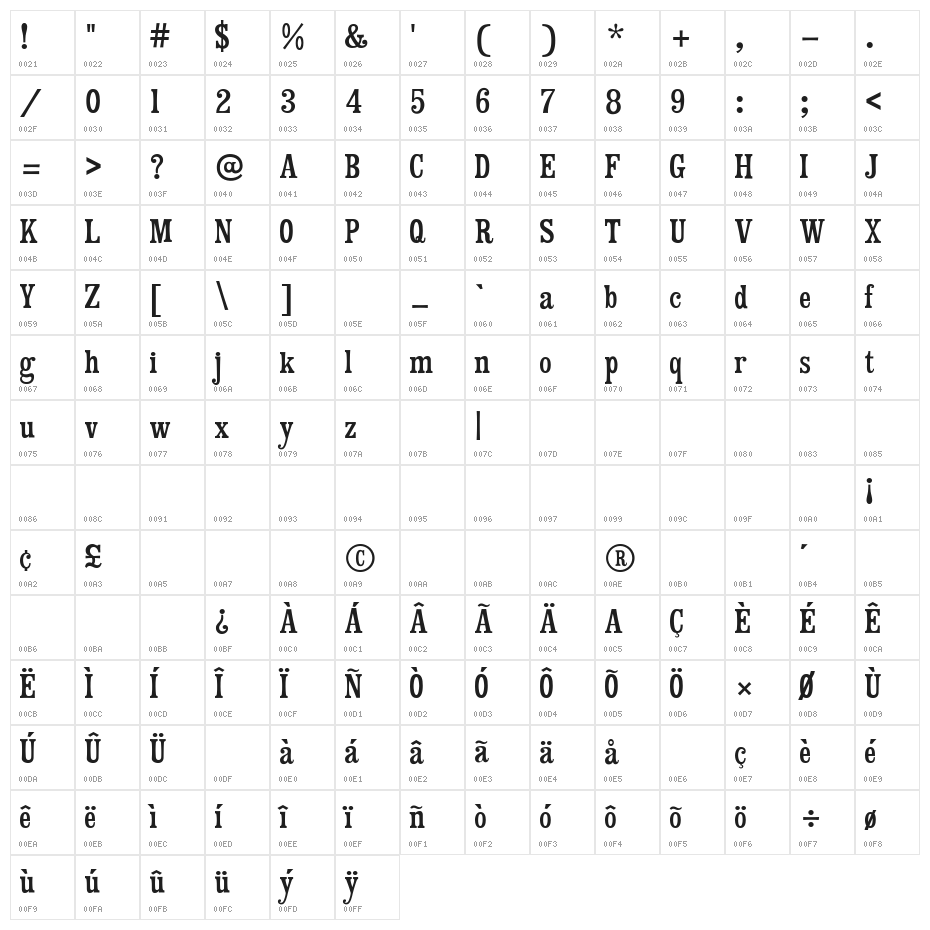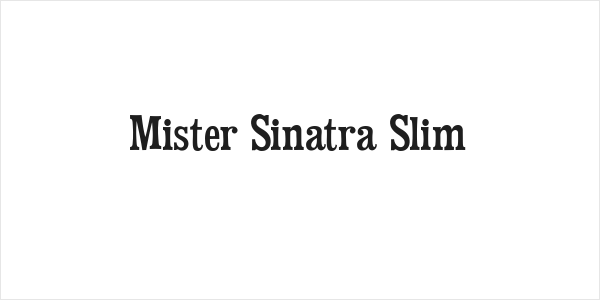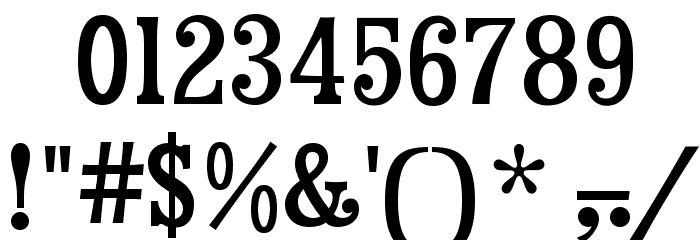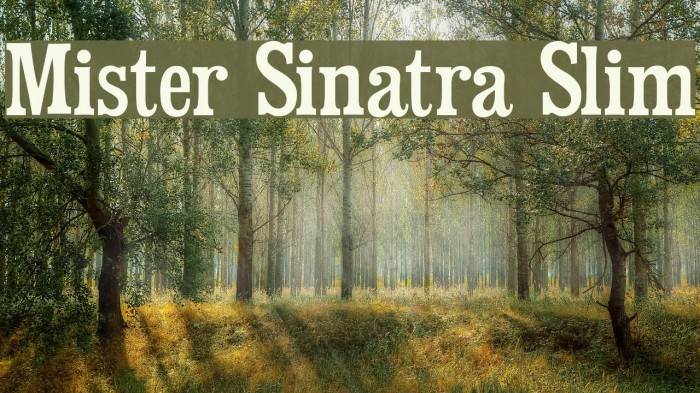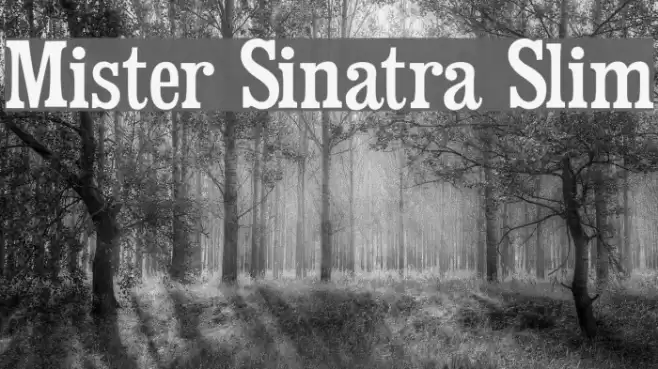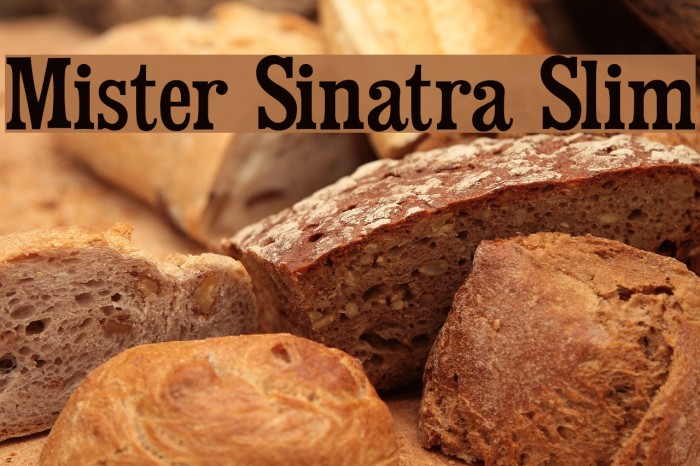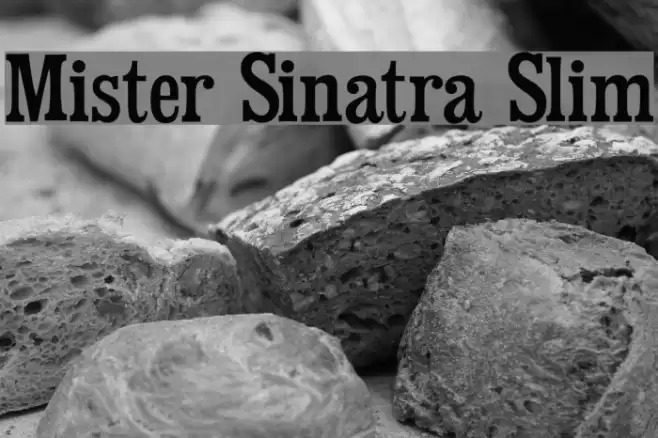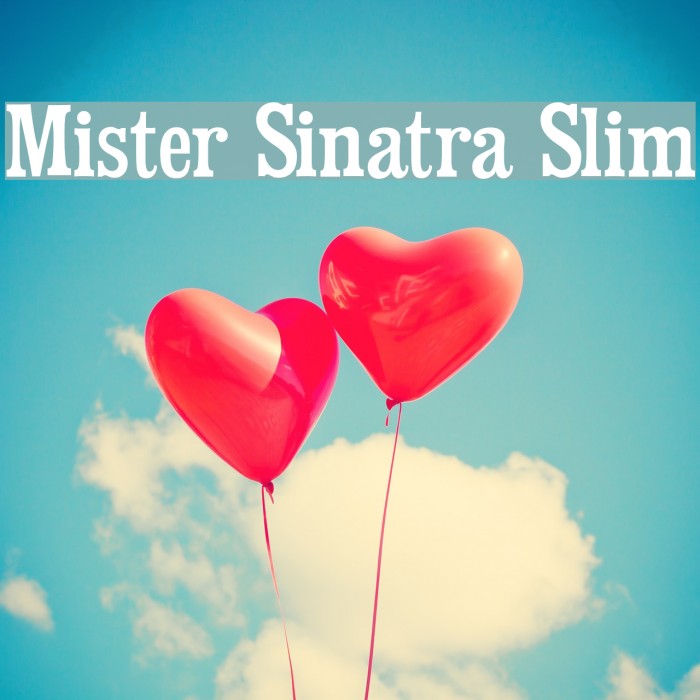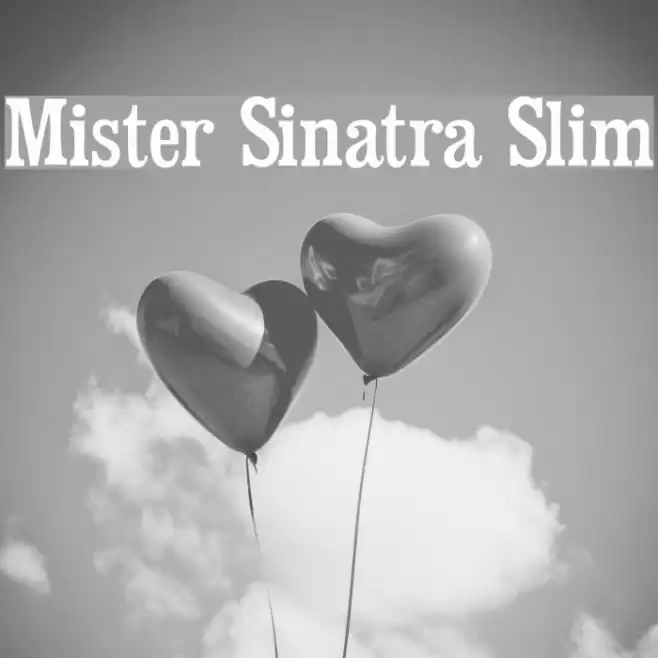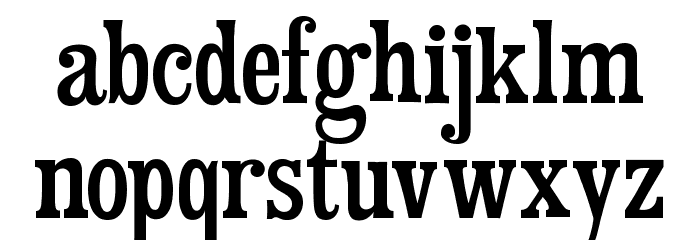
Mister Sinatra Slim Font
Mister Sinatra Slim Description
This font features a bold and confident style with strong serifs and a classic appearance. The uppercase letters are tall and commanding, while the lowercase letters maintain a consistent and harmonious flow. The numerals are clear and distinct, making them easily readable. Special characters are well-defined, adding versatility to the font. The overall design is reminiscent of traditional serif fonts, yet it carries a modern twist that makes it suitable for contemporary use. The strokes are consistent in width, providing a balanced and uniform look across all characters.
| Overall Style | Classic |
| Proposed Projects | Ideal for headlines, branding, editorial design, and any project requiring a strong, classic presence. |